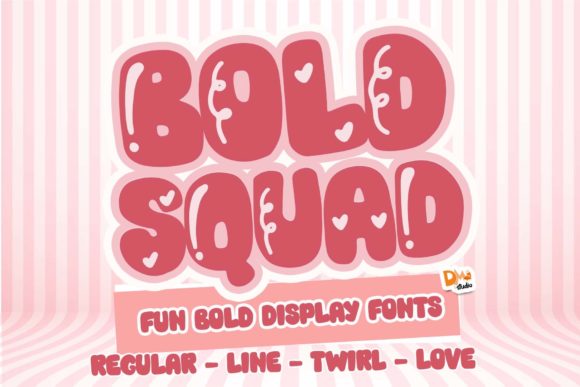
The Bold Squad Font: A Game-Changer for Your Designs
I’ll never forget the time I was working on a project for a client who needed a bold, eye-catching font to make their brand stand out. I scoured the internet, tried countless fonts, but nothing seemed quite right. That was until I stumbled upon the Bold Squad font. It’s a collection of four bold display fonts that has become a staple in my design toolkit. In this article, I’ll share my experience with Bold Squad, its features, and how to make the most of it in your designs.
An Honest Review of Bold Squad
- ✨ Fun and Comical: Bold Squad is perfect for designs that need a playful touch. Its bold and quirky style adds a level of whimsy to any project.
- ✅ Versatile: With four different font styles, you can use Bold Squad for a wide range of projects, from posters and flyers to social media graphics and branding.
- 💡 Easy to Read: Despite its bold style, Bold Squad is surprisingly easy to read, even at smaller sizes.
While Bold Squad is an excellent font, it’s not perfect. Here are a few things to keep in mind:
- 🤔 Limited Use Cases: While Bold Squad is versatile, it’s not suitable for body text or long-form content. It’s best used for headings, titles, or short phrases.
- ⚠️ Glyph Support: Some users have reported issues with glyph support in certain applications. However, this is relatively rare and usually easily resolved.
- Experiment with the different font styles and OpenType features, such as ligatures and stylistic alternates, to add visual interest to your design.
- Take advantage of OpenType features, such as glyphs and stylistic alternates, to add depth and visual interest to your design.
The Story Behind Bold Squad
Bold Squad was designed by a team of creatives who wanted to create a font that was both fun and versatile. The design process involved experimenting with different bold styles and quirky touches to create a font that would add a level of whimsy to any design. The result is a font that’s perfect for designers, crafters, and creative hobbyists who want to add a bold, eye-catching touch to their projects.
Q: What is Bold Squad?
A: Bold Squad is a collection of four bold display fonts that are fun, comical, and versatile.
Q: What can I use Bold Squad for?
A: Bold Squad is perfect for designs that need a bold, eye-catching font, such as posters, flyers, social media graphics, and branding.
Q: Is Bold Squad easy to read?
A: Yes, despite its bold style, Bold Squad is surprisingly easy to read, even at smaller sizes.